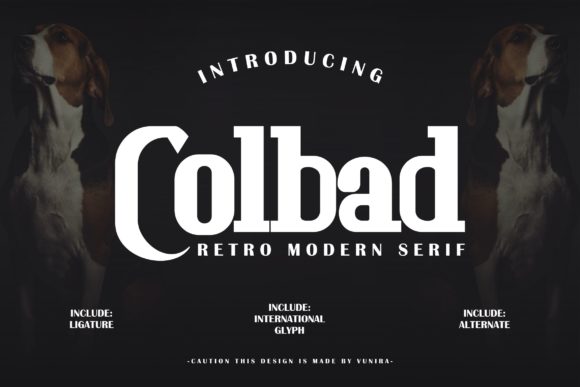
In a digital realm saturated with uniformity, where fonts often blend together like raindrops in a storm, allow us to introduce Colbad, a font that stands apart, a rebel with a cause. Crafted with meticulous precision, Colbad is a serif font that weaves a captivating narrative through its intricate strokes and curves. Its unique form exudes a vintage charm, evoking a sense of nostalgia that transports you to an era of timeless elegance.
With its playful demeanor and undeniable charisma, Colbad breathes life into your designs, whether they be formal or casual. Imagine your website adorned with Colbad's graceful presence, its letters dancing across the screen, captivating your audience with their inherent beauty. The neat and orderly arrangement of each character ensures impeccable readability, allowing your message to shine through without hindrance.
Colbad's versatility is a testament to its boundless creative potential. It effortlessly adapts to any project, from branding and marketing materials to eye-catching social media posts and captivating presentations. Its ability to transform ordinary text into a visual feast makes it the perfect choice for designers seeking to elevate their work and leave a lasting impression.
But Colbad is more than just a font; it's an emotion, a mood, a way of expressing yourself. Its vintage aesthetic adds a touch of sophistication, a hint of mystique, and an undeniable charm to your designs. With Colbad, your creations transcend the mundane and enter a realm of timeless beauty and elegance.